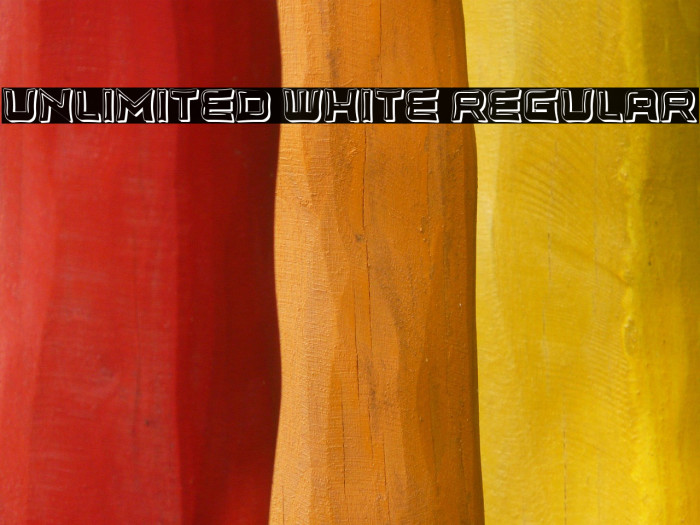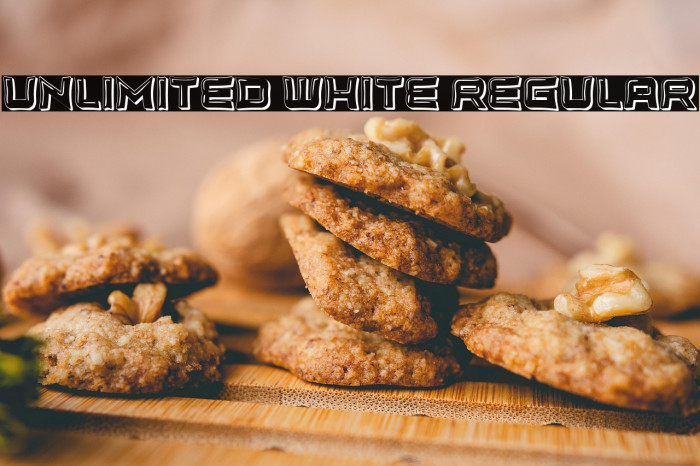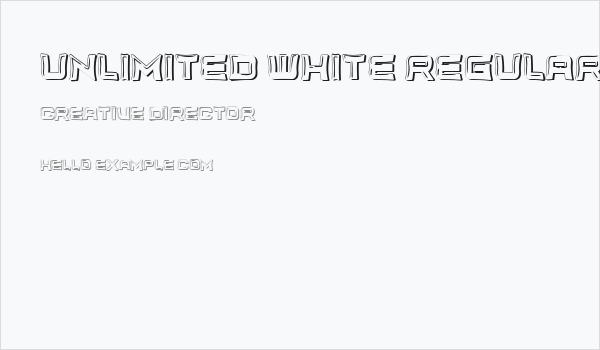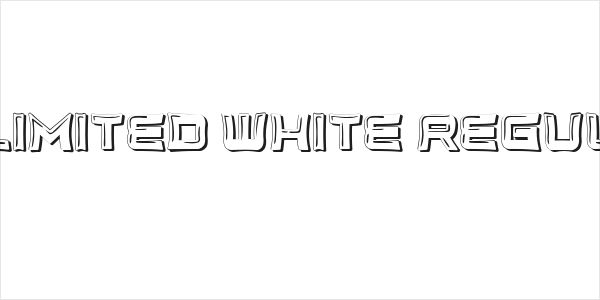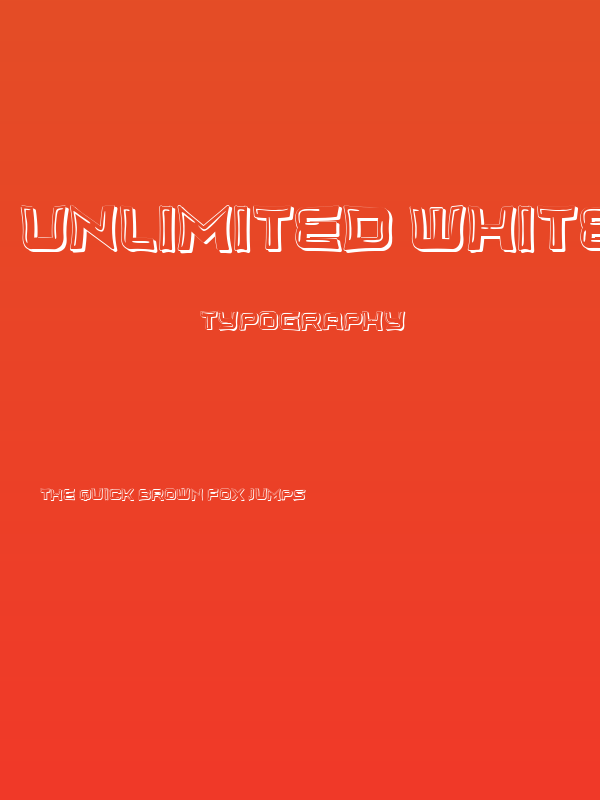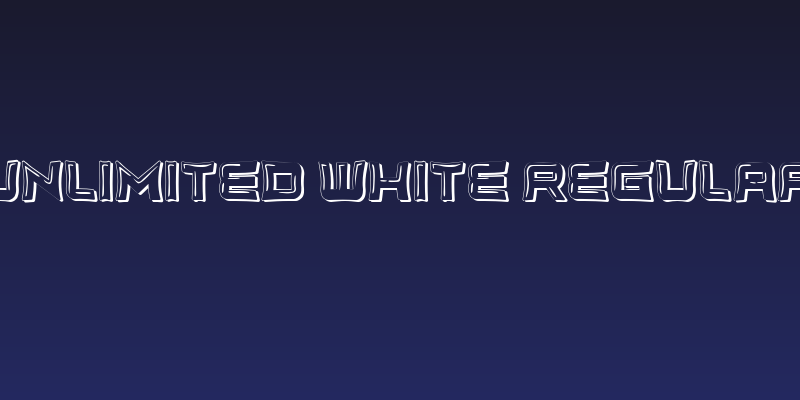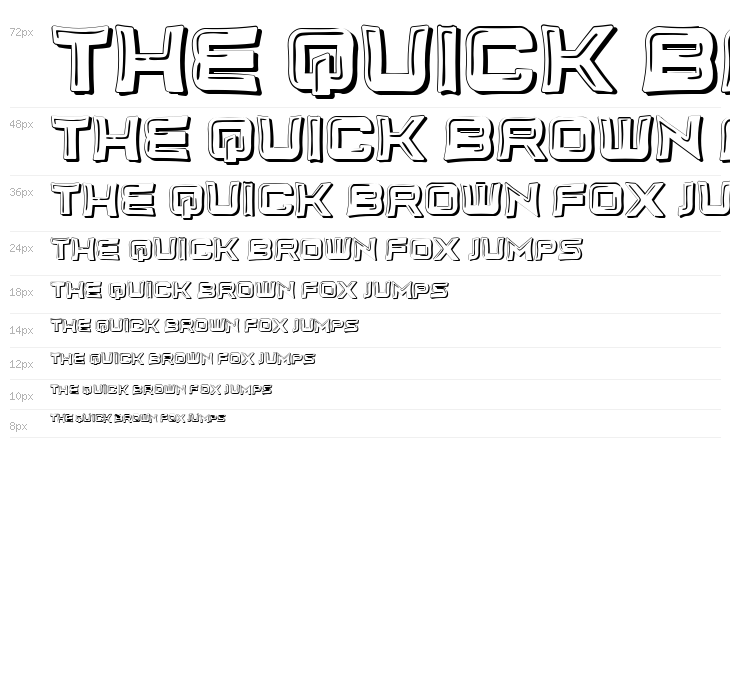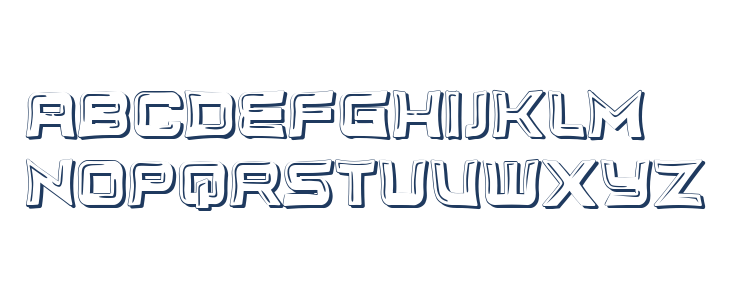
Unlimited White Regular Font
Unlimited White Regular Description
This font features a bold, three-dimensional design with a futuristic and dynamic appearance. Each character is outlined with a shadow effect, creating a sense of depth and movement. The geometric structure of the letters is consistent, with sharp angles and clean lines that convey a sense of modernity and strength. The uppercase letters are particularly striking, with a uniform height and width that enhances their visual impact. The font's unique style makes it suitable for projects that require a bold and eye-catching typeface, such as posters, logos, and headlines. The spacing between characters is balanced, allowing for readability while maintaining the font's distinctive style.
Proposed ProjectsIdeal for posters, logos, headlines, and any design requiring a bold, eye-catching typeface.